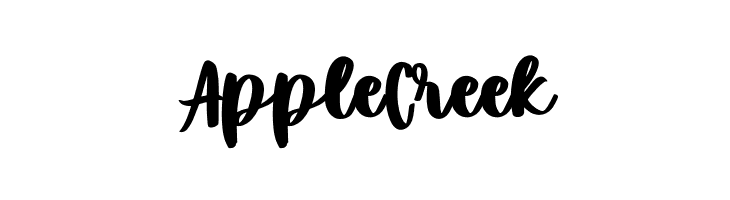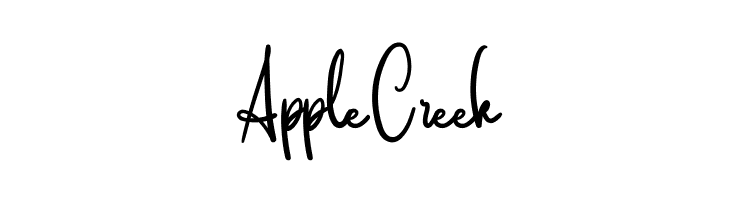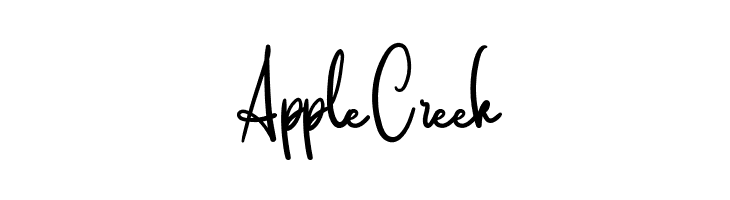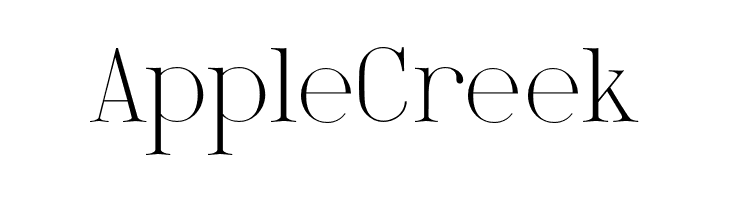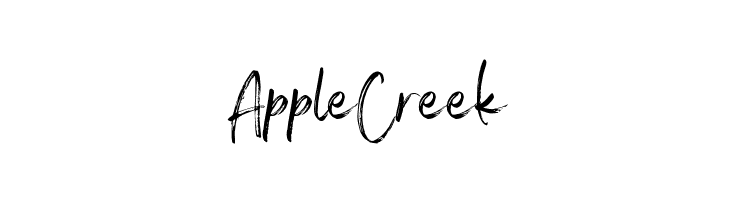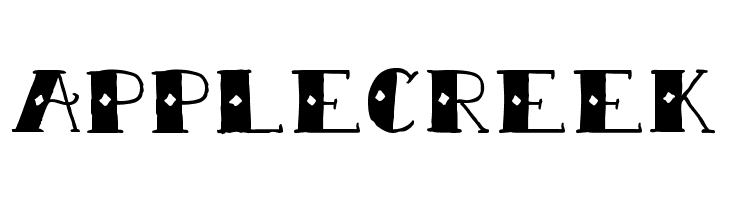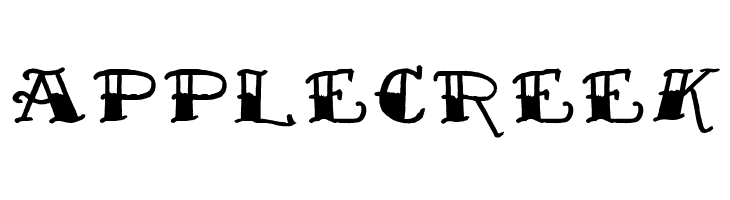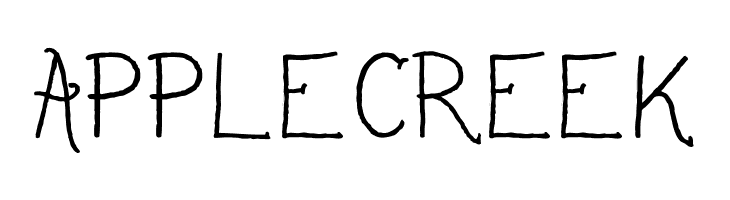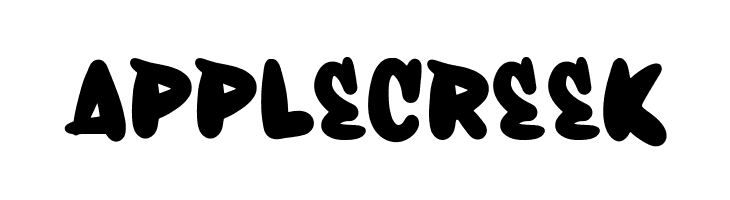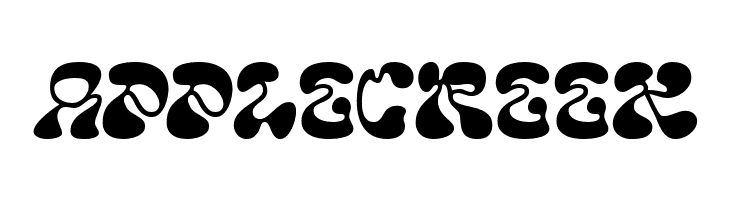
A bold, expressive script font with a handwritten, fluid style.
A playful, handwritten script font with dynamic, looping strokes.
A playful, handwritten script font with smooth, fluid strokes.
An elegant serif font with high contrast and refined details.
A dynamic, brush-style handwritten font with expressive strokes.
A bold, decorative font with playful cutouts and a whimsical style.
A bold, decorative font with a vintage tattoo-inspired style.
A whimsical, hand-drawn font with playful, uneven strokes.
A bold, playful font with thick, rounded strokes and a whimsical style.
A bold, playful retro font with bubbly, rounded shapes and a vintage feel.
Decorative, vintage-inspired display font with flared serifs and hand-drawn character.
A futuristic, three-dimensional font with bold, angular lines and a tech-inspired design.
A playful, casual handwritten font with irregular strokes.
A playful, hand-drawn font with tall, narrow characters and a whimsical style.
A bold, vintage-inspired font with a strong, authoritative presence.
A bold, vintage-inspired serif typeface with strong, thick strokes.
An elegant script font with flowing, cursive letters and a classic style.
An artistic script font with elegant curves and a playful flair.
An elegant italic font with sharp serifs and dynamic letterforms.
A classic serif font with elegant strokes and high contrast, ideal for formal use.
A sleek, italicized font with a modern and sophisticated style.
A clean, geometric font with consistent stroke widths and a modern aesthetic.
A modern, geometric font with a sleek and sophisticated design.
An elegant script font with intricate swashes and high contrast strokes.
An elegant, flowing script font with ornate swashes and high contrast.
A modern geometric font with clean lines and a balanced design.
A dynamic italic font with smooth, flowing lines and a modern aesthetic.
An artistic, cursive script font with flowing, decorative elements.
A classic serif font with elegant strokes and refined details.
A semi-serif font combining classic elegance with modern style.
A bold, graffiti-inspired font with sharp, angular lines and a rebellious style.